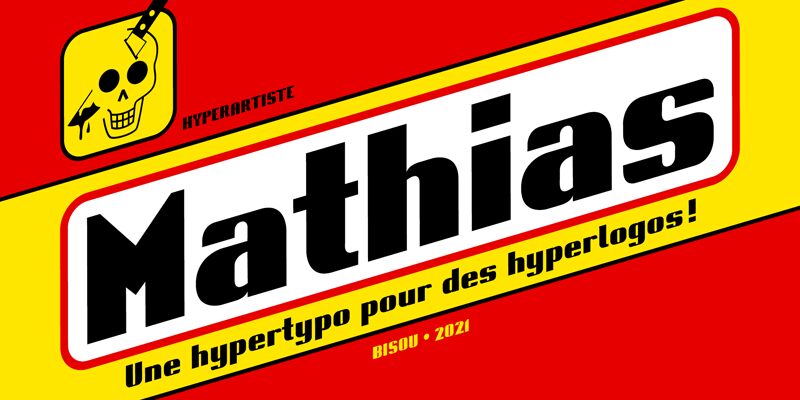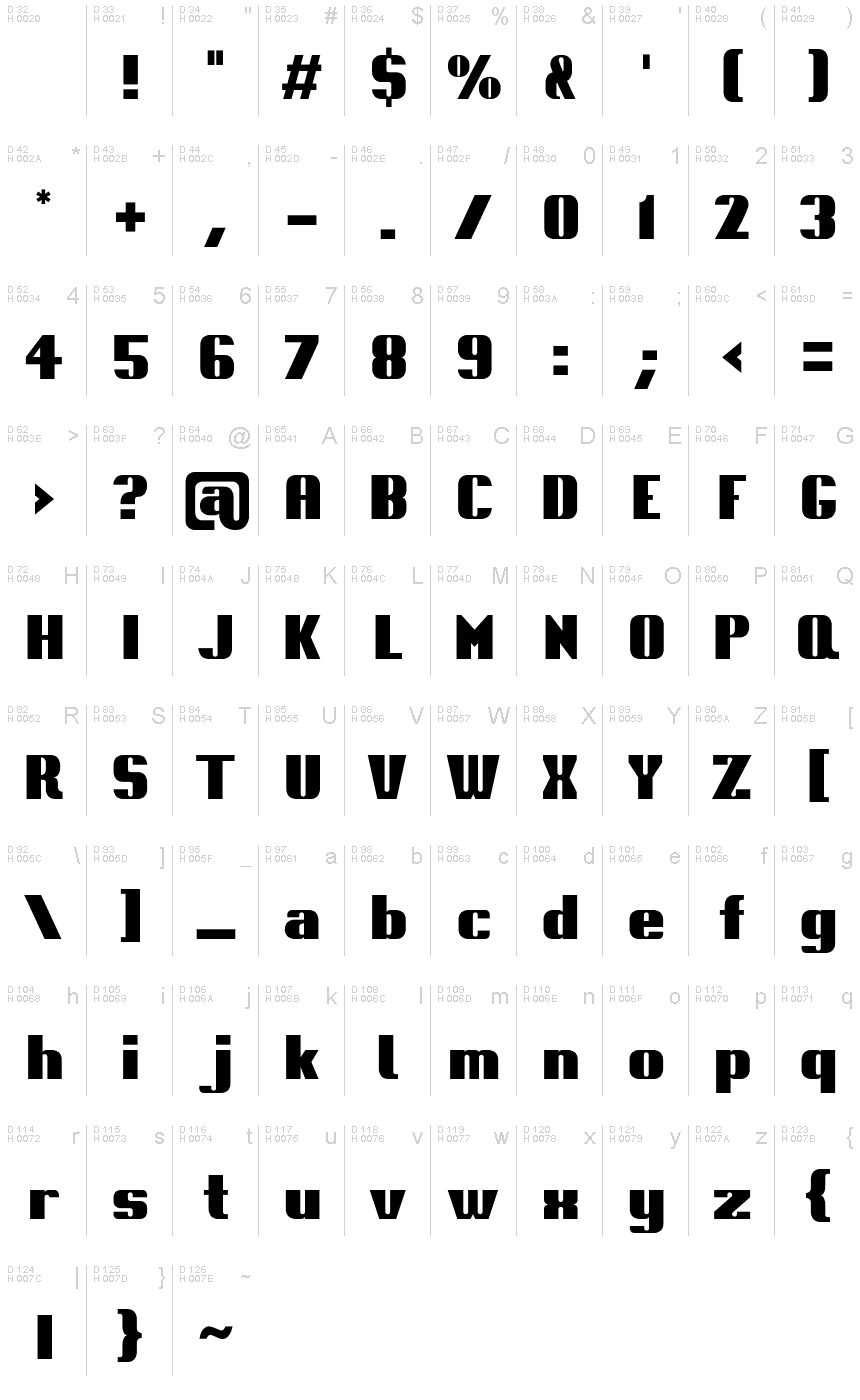
Mathias
Mathias, a striking display font by Bisou, captures the essence of retro design with its bold and semi-expanded letterforms. Its extra-bold weight commands attention, making it perfect for headlines and titles that demand impact. The unique combination of vintage charm and contemporary style lends itself to a diverse range of projects, from nostalgic brand identities to eye-catching packaging designs.
Whether you're designing for fashion, music, or advertising, Mathias is the go-to font to infuse your work with a touch of retro flair and undeniable personality.